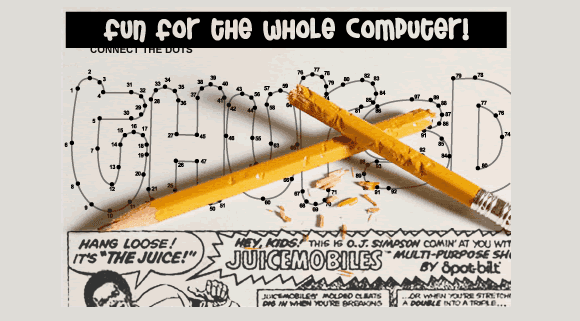
If I were a coloring book, this would be the font I want on every single page. "Why on earth would anyone want to be a coloring book?", you ask yourself. Duh, think about it. Models come home from work, what do you think they do? They color in their coloring books. Probably for hours. Across town, that nursery is getting pretty steamy. What in the world could that sexy nanny fan herself with that's accessible? Two words: coloring book. And after school, you know there's going to be a cheerleader charity car wash somewhere. I don't know if they neccessarily need coloring books there, but hey, its just a dream right?